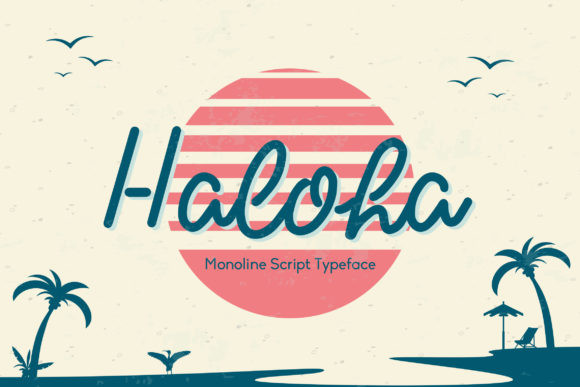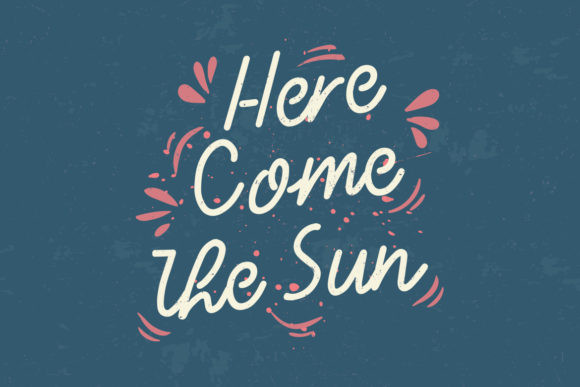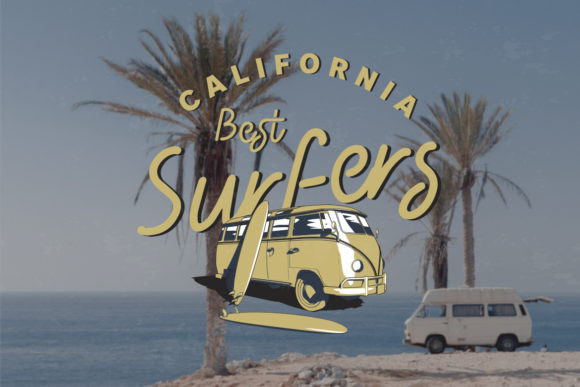
Haloha Font
Haloha is an elegant script font that will bring beauty and harmony to your designs. Whether you’re using it for crafting, digital designing, presentations or greeting cards making, it’s perfect!